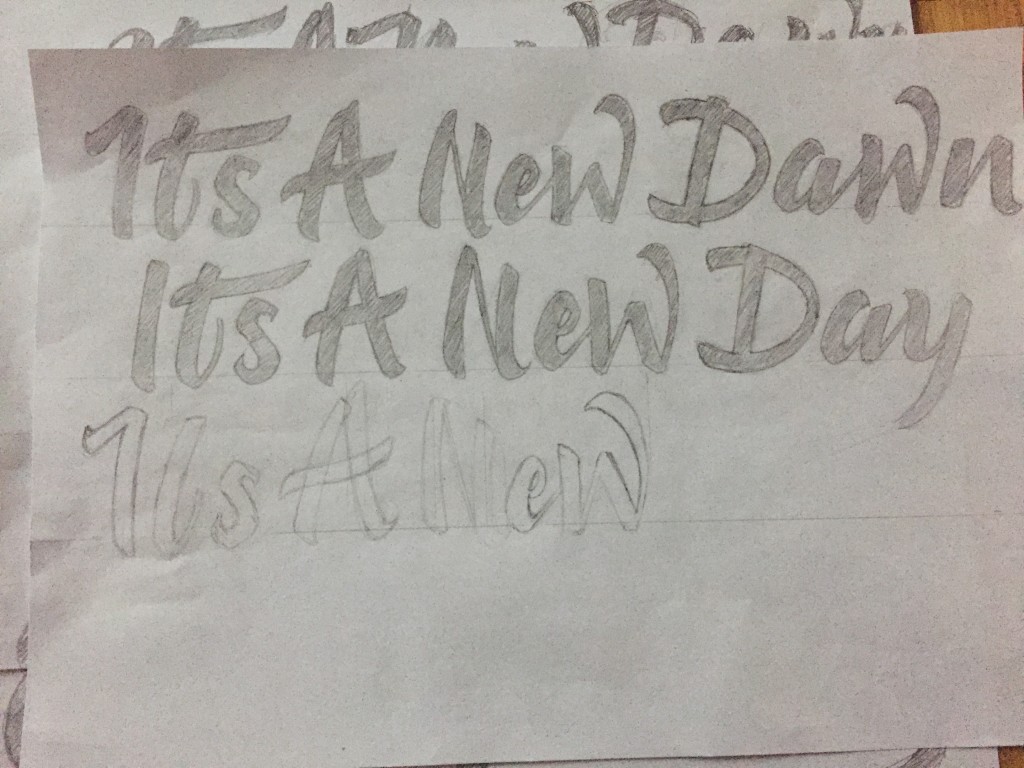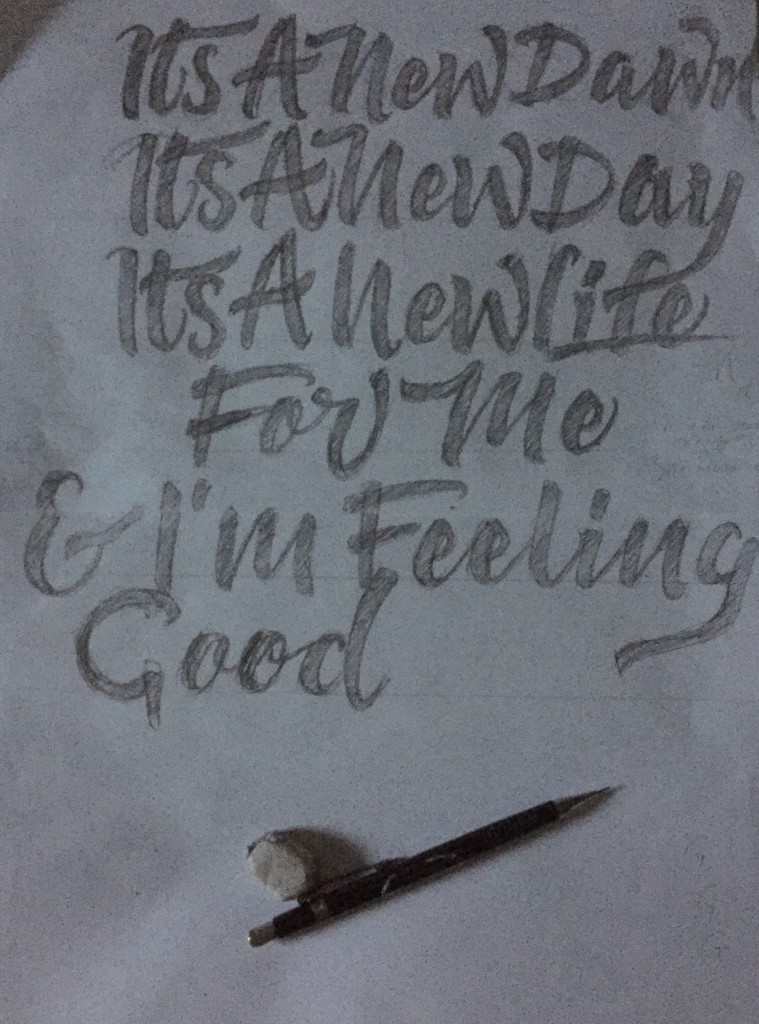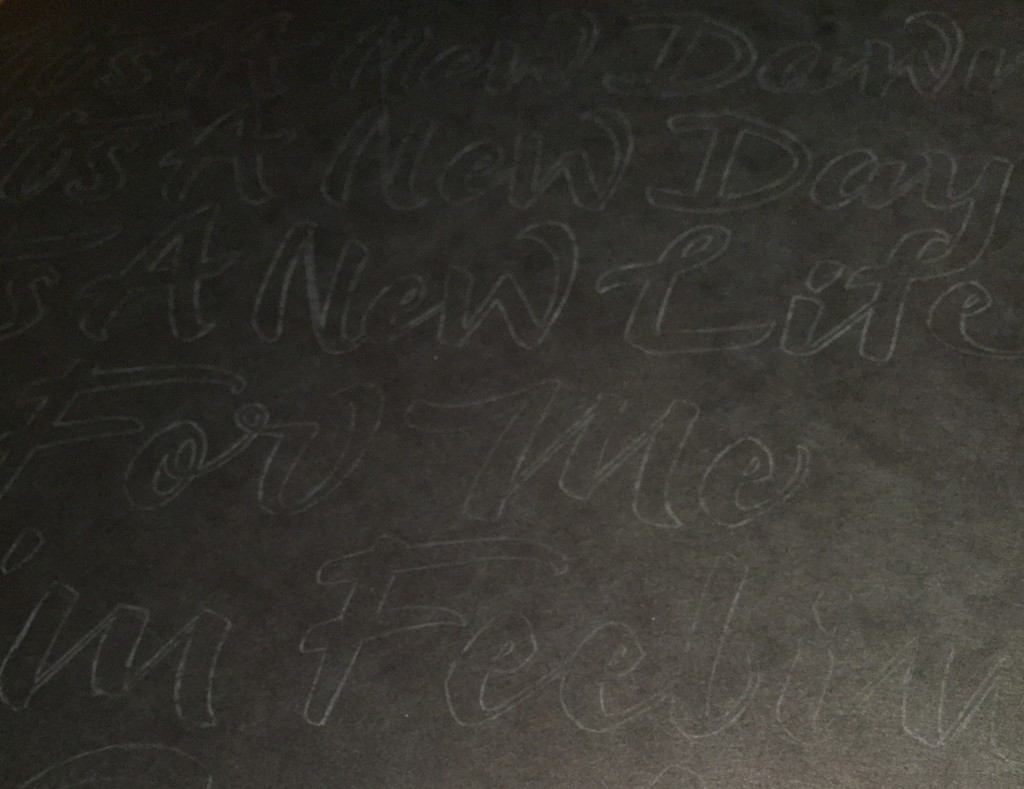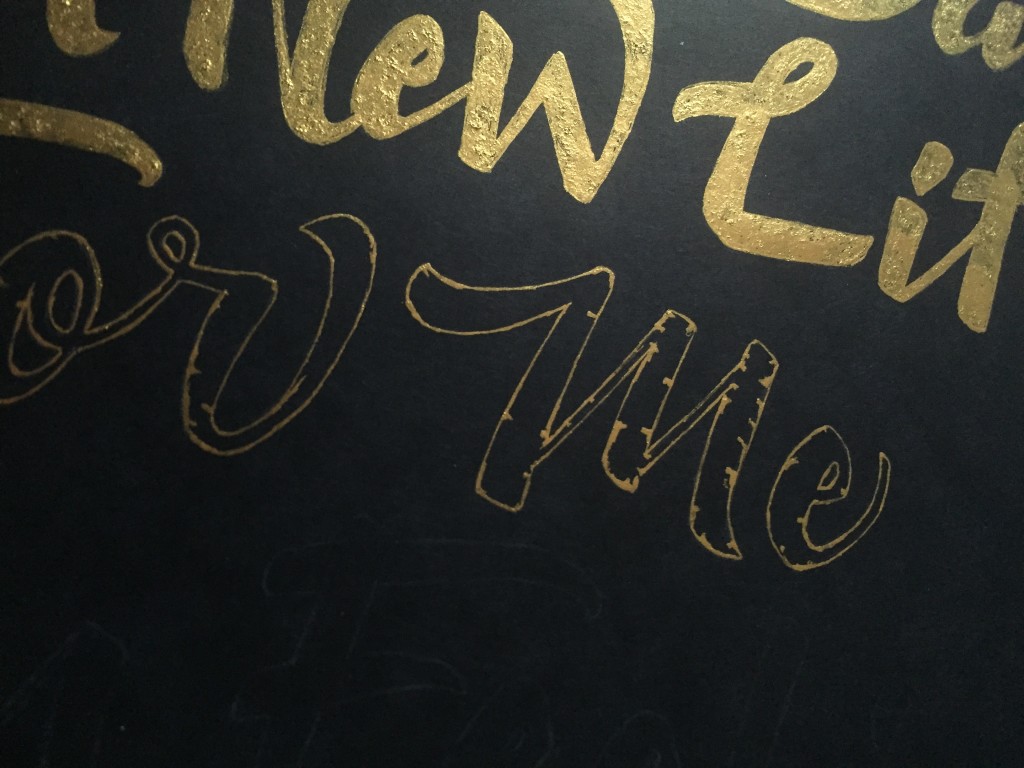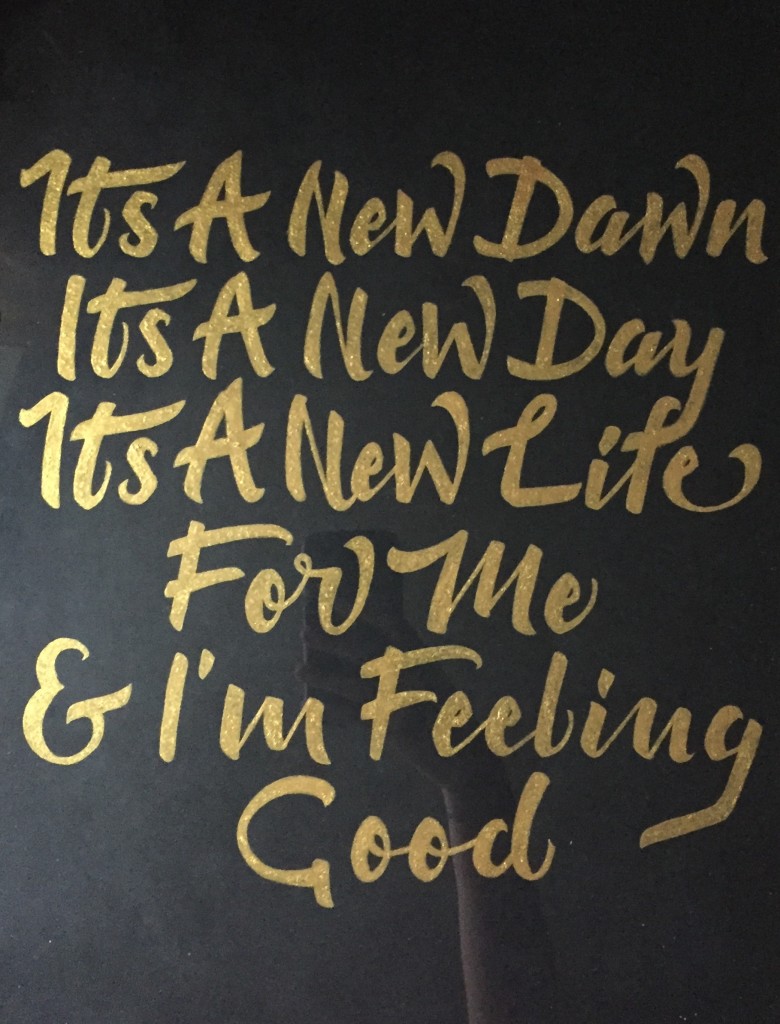
Hand Lettering A Gift For The Holiday
Hand Lettering A Gift For The Holiday - Lettering TutorialIt's time to bring you the last of three special holiday tutorials, this time focusing on hand lettering a quote or phrase that you can frame and give away as a gift. If you missed the previous two tutorials you can learn how to create hand lettered Christmas cards with Emma Holmes, and how to make gift tags more interesting using calligraphy, with Belinda Love Lee. You can also find another great tutorial directly on Belinda's blog, showing you how to create your own DIY wrapping paper which goes great with her gift tag tutorial.
What I enjoy most about Christmas
I really love that there are so many opportunities to be creative at Christmas. When I was little every year I would make something, whether it was decorations for the tree, nativity scenes out of old toilet rolls, or cards for my family. As I've gotten older the desire to create festive things hasn't gone away. There are so many things you can put a personal touch on at Christmas and it's so easy to start a new creative holiday tradition too. Each time Christmas comes round there's the option of refining creative activities, getting better and better at a specific craft, or just trying out a new one, it's a great time for experimenting.
Steps for making a hand lettered holiday gift
Step One - Choose a quote or phrase you want to letter (I've chosen some lyrics by the band Muse).
Step Two - Note your quote or phrase down, and spend some time focusing on layout, especially if your quote or phrase spans more than one line.
Step Three - Draw out some guidelines on plain white paper, then roughly draw the letters you're going to be using.
Holiday Gift Muse Lyrics Lettered - Lettering Tutorial
Step Four - Add shape and style to your letters (I've chosen a brush lettering style for mine).
Step Five - Trace your lettering onto another piece of plain white paper, paying attention to letter sizes and spacing. Trace and refine further times if necessary to get the right look.
Holiday Gift Muse Lyrics Lettered - Lettering Tutorial
Step Six - Now using your white pencil shade the back of your white piece of paper with the final design on, making sure you've covered the whole sheet. (It can be a little tricky to see where you've shaded, but if you tilt your paper in the light you should be able to see what's been covered).
Step Seven - Place your final design on top of your black or dark coloured paper (white coloured side facing down), and use a little bit of tape to hold the design in place and to stop it from moving.
Step Eight - Take a sharp pencil and trace over your final outline on your white sheet of paper. Apply a fair amount of pressure as you trace, this will create a faint white outline of your lettering design that you can then work from on your black or dark coloured sheet.
Holiday Gift Muse Lyrics - Lettering Tutorial
Step Nine - Choose either a gold, silver or white ink / paint (something that will show up well on dark paper), and use a calligraphy dip pen to outline your letters.
Holiday Gift Muse Lyrics Lettered - Lettering Tutorial
Step Ten - Fill in your outlined letters with a fine brush, and use your calligraphy dip pen again for little details or fiddly bits.
Your quote or phrase is now finished ready to be framed and gifted!
HolidayGift Muse Lyrics Lettered - Lettering Tutorial
Final Thoughts
Not only can these steps be used to create Christmas gifts, they can be used to create hand lettered gifts throughout the whole year too, birthday gifts, valentines gifts, or possibly even something for yourself.